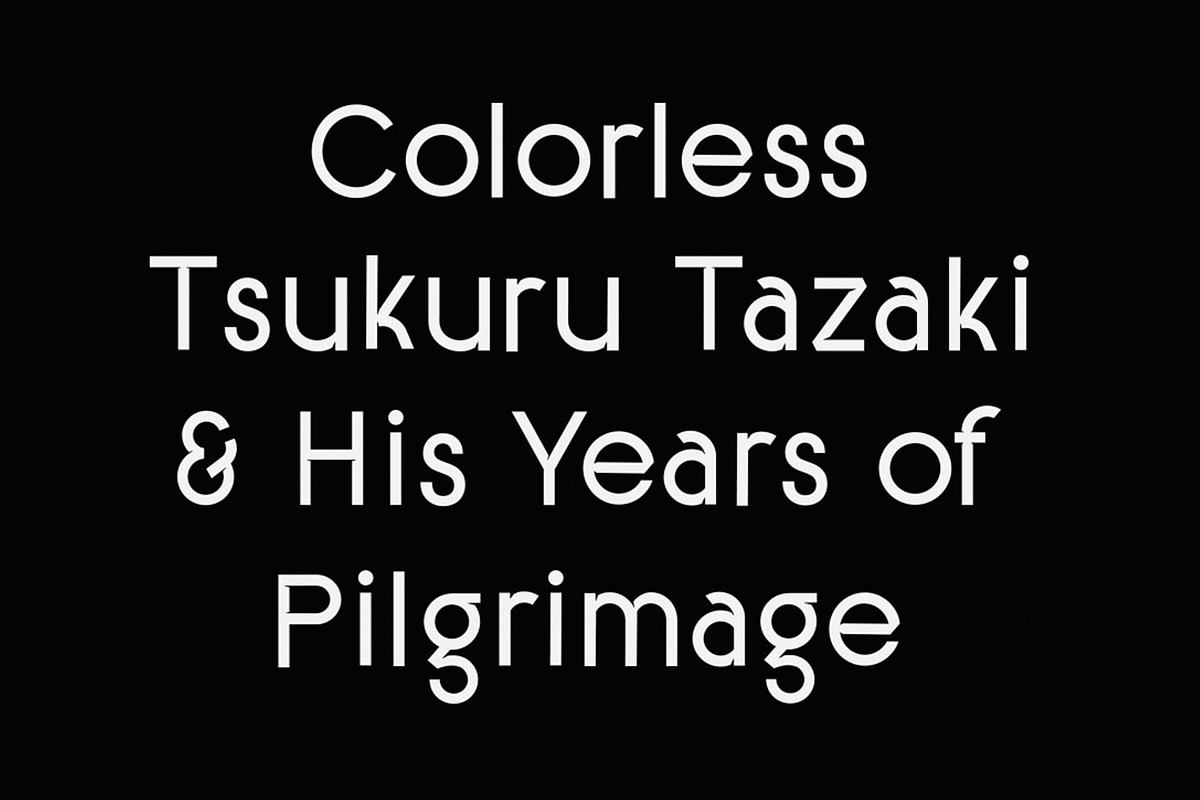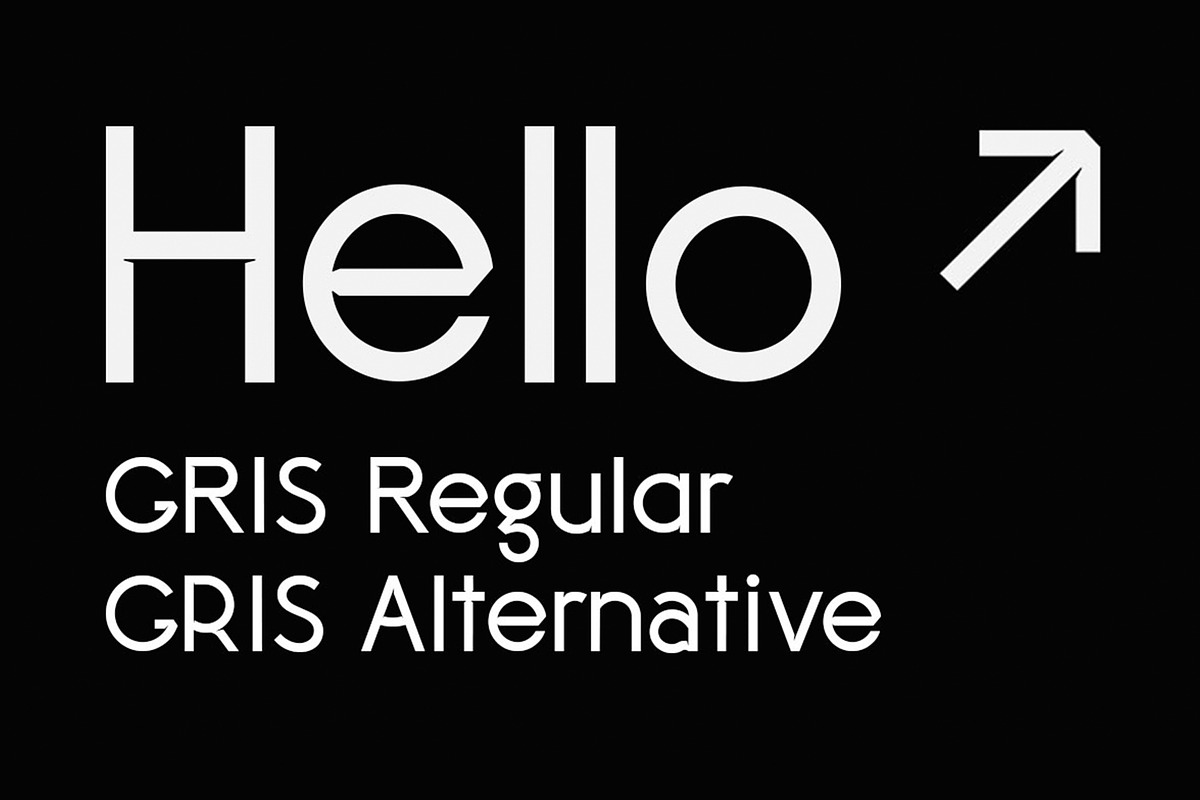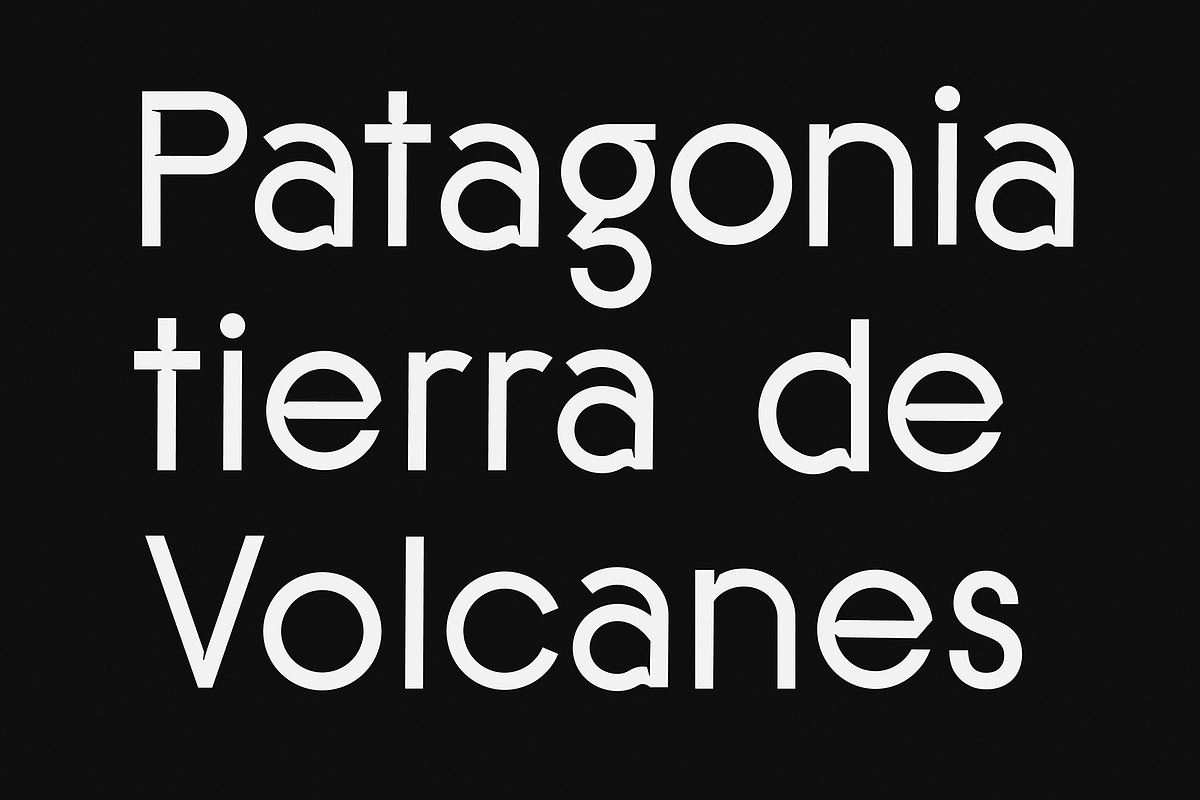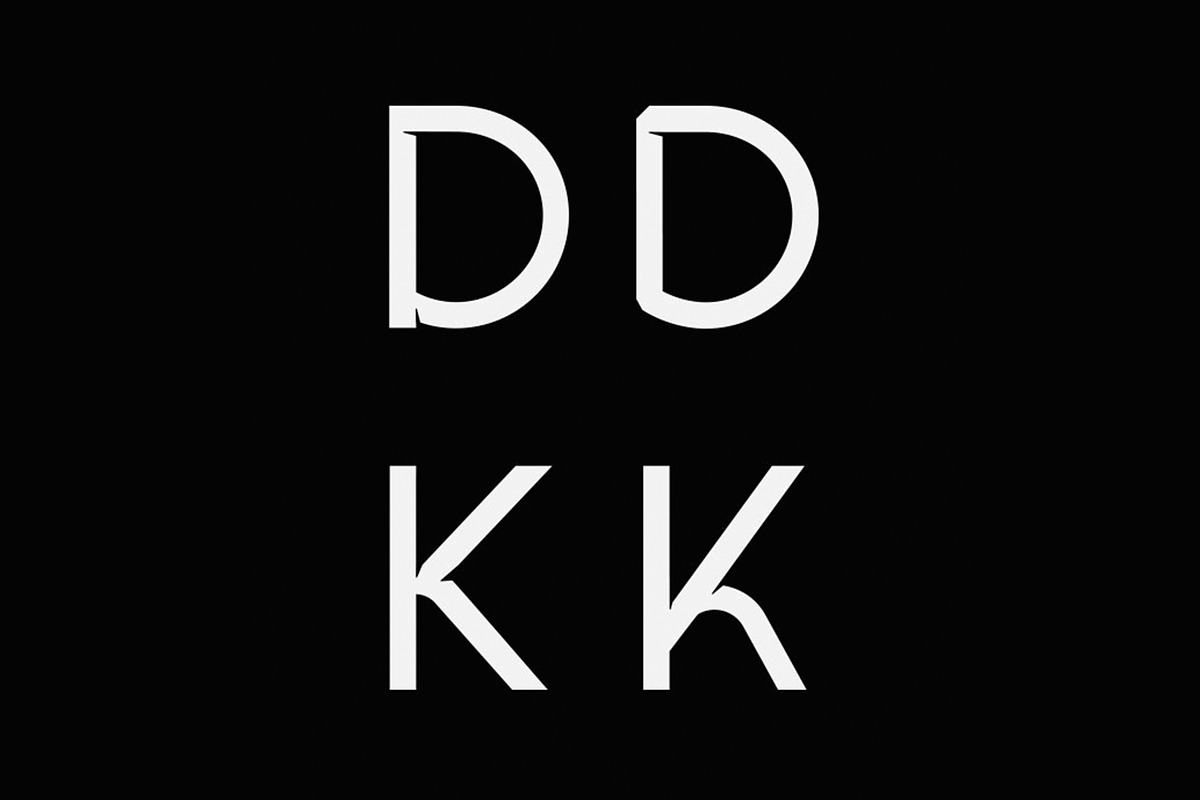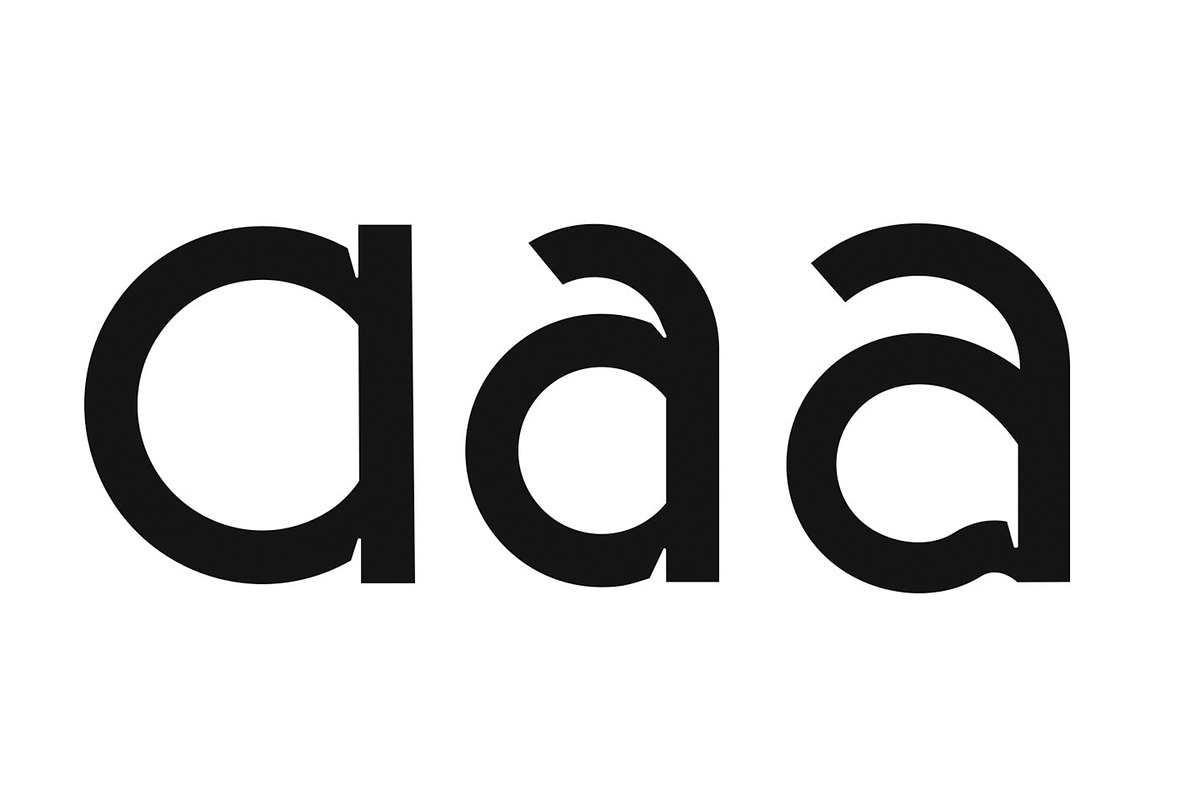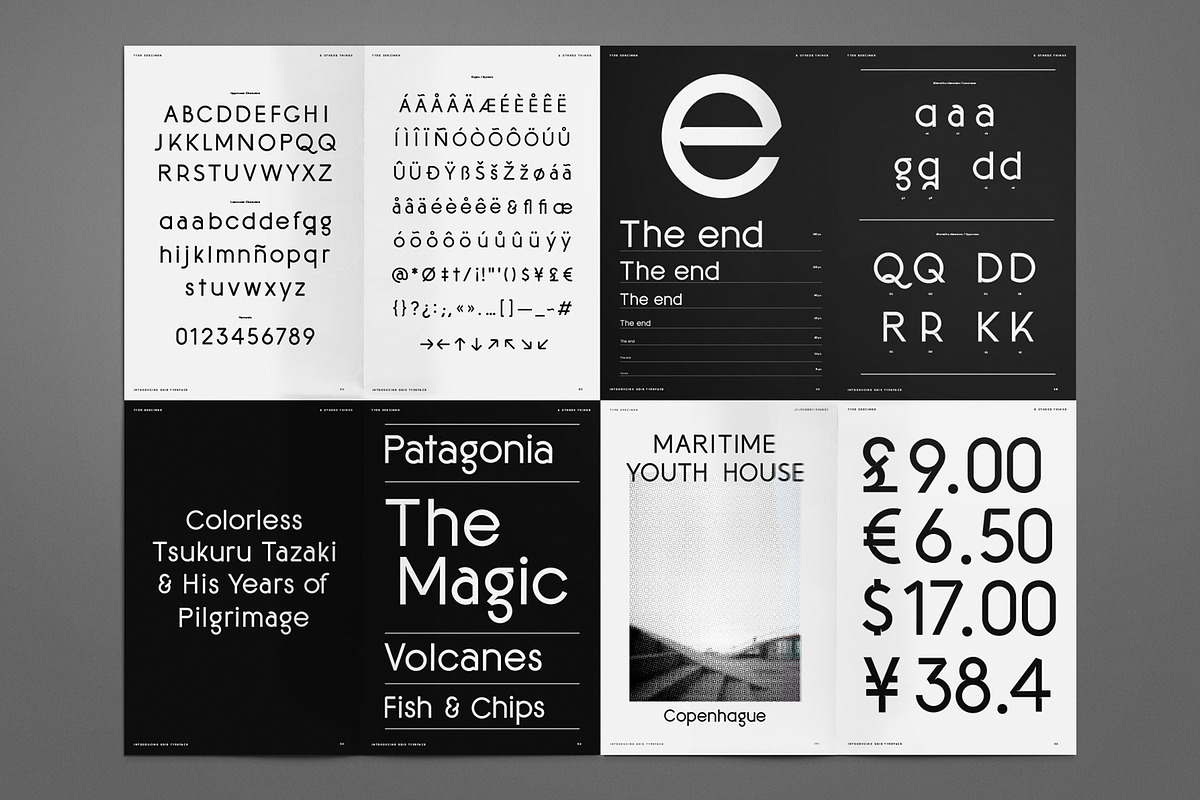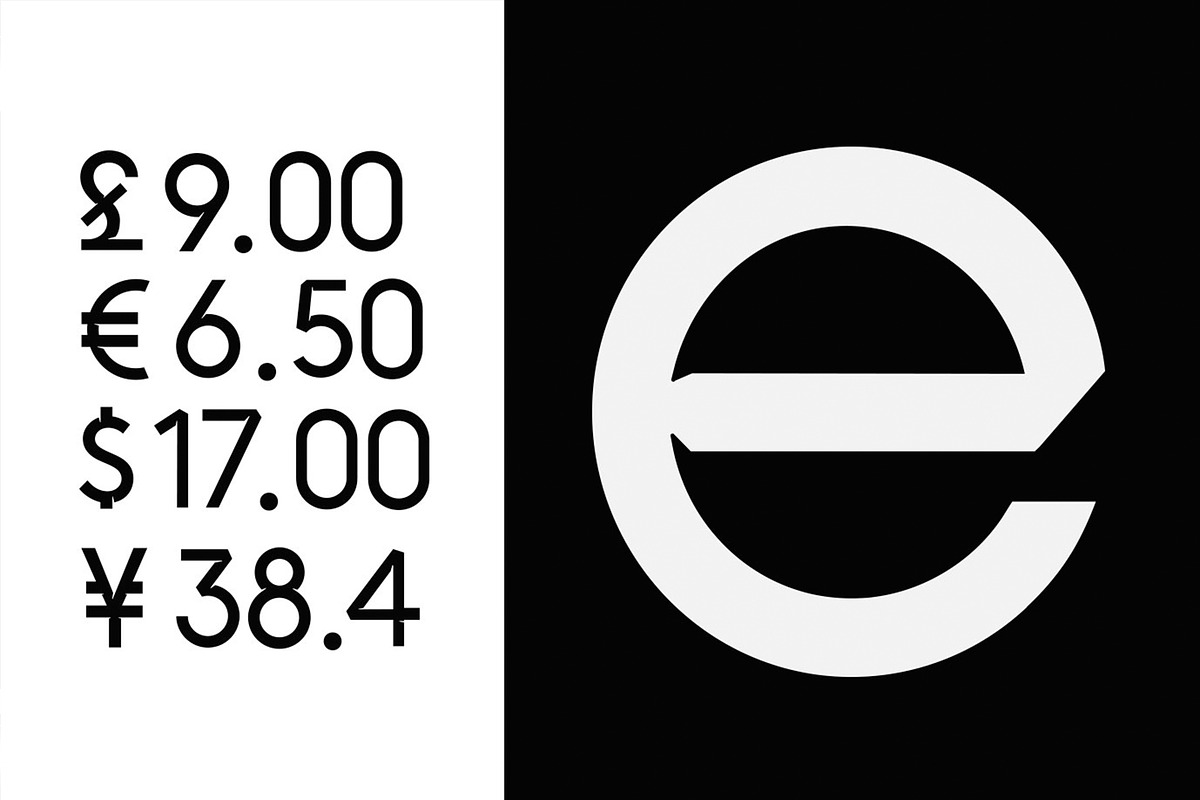
Gris Typeface
Gris is a simple and experimental typeface with ink traps. This set contains 30 Uppercase characters, 32 Lowercase characters, Numerals, 90 Glyphs and symbols, and 8 directional arrows.
- This set contains 30 Uppercase characters, 32 Lowercase characters, Numerals, 90 Glyphs and symbols, and 8 directional arrows.
Why Gris Typeface is worth a look
Gris Typeface by Cyn Torrez fits naturally into Branding, posters, packaging, typography.